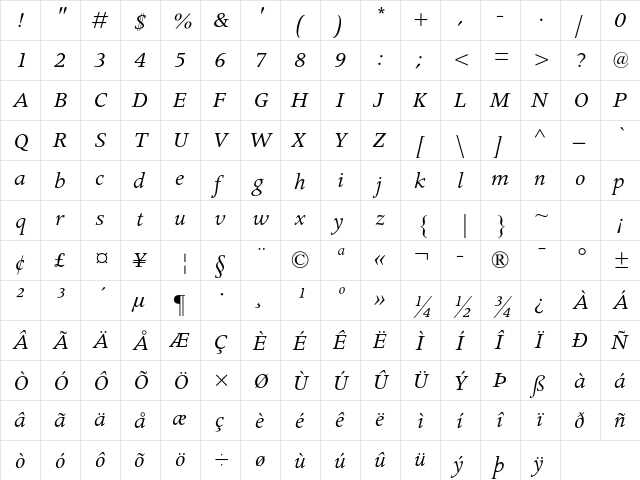
Apollo MT Std Italic
| Designer | Adrian Frutiger |
Design Context for Apollo MT Std Typeface
Apollo MT Std offers clean, dependable letterforms without strong stylistic allegiance, making it a practical choice for designers who need flexibility. The dynamic lean of this cut emphasises speed and emphasis in any layout.
Pro Tip: Try Apollo MT Std for annotation and caption copy alongside an upright companion — the contrast in angle creates a dynamic but ordered typographic system.